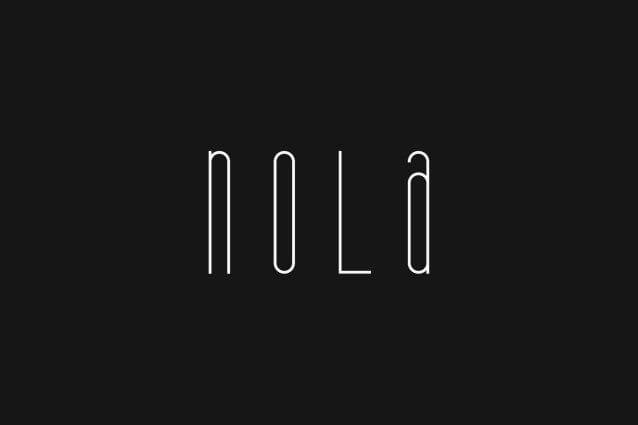
Nola Display Font
Nola Display Font is an elegant and versatile font display that will make your typography truly unique! It will enchant every logo, branding, headline, or plain text!